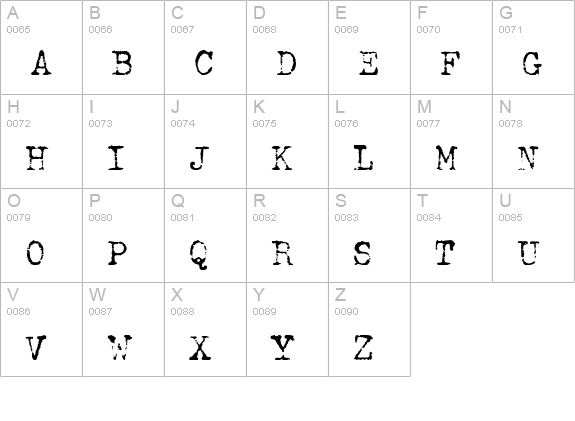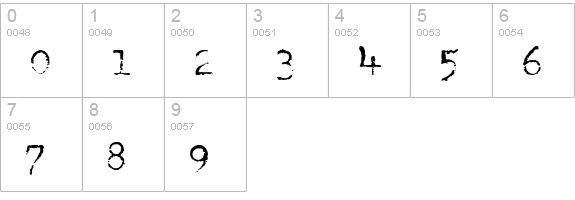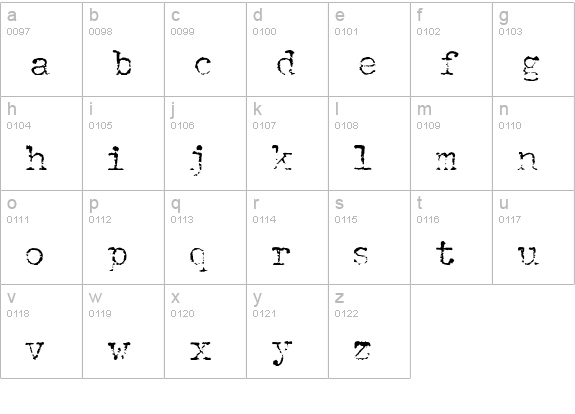
DumbOldTypewriter Light is a refined, elegant variant in the DumbOldTypewriter typeface family \xE2\x80\x94 well suited to elegant body text, refined sub-headings, and luxury branding.
DumbOldTypewriter Light font is a charming and nostalgic typeface that captures the essence of vintage typewriters. Its classic design exudes a sense of simplicity and authenticity, making it perfect for adding a touch of retro flair to your projects. The light weight of this font gives it a delicate and elegant appearance, ideal for conveying a sense of whimsy and sophistication. What's even better is that DumbOldTypewriter Light font is completely free to download at FontsMarket.com. Now you can easily incorporate this unique and timeless font into your designs without any cost. Whether you're working on a creative project, branding materials, or simply want to add a vintage touch to your work, DumbOldTypewriter Light font is a versatile and stylish choice. Embrace the beauty of yesteryears with this free and accessible font today!